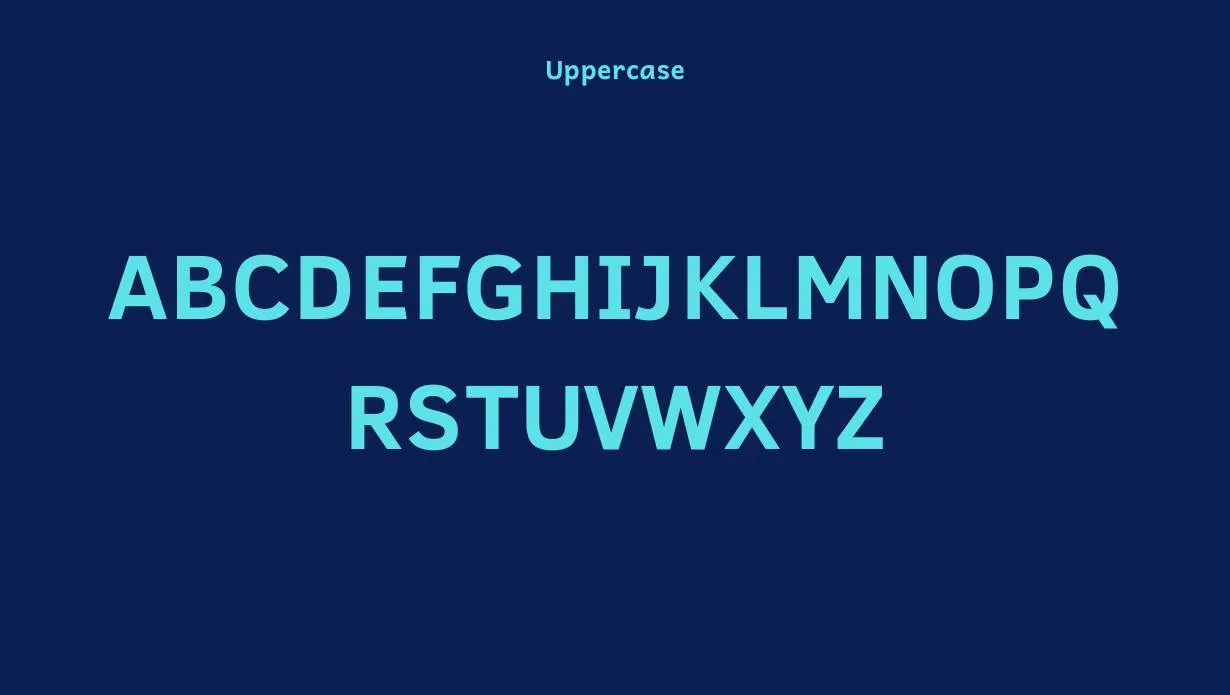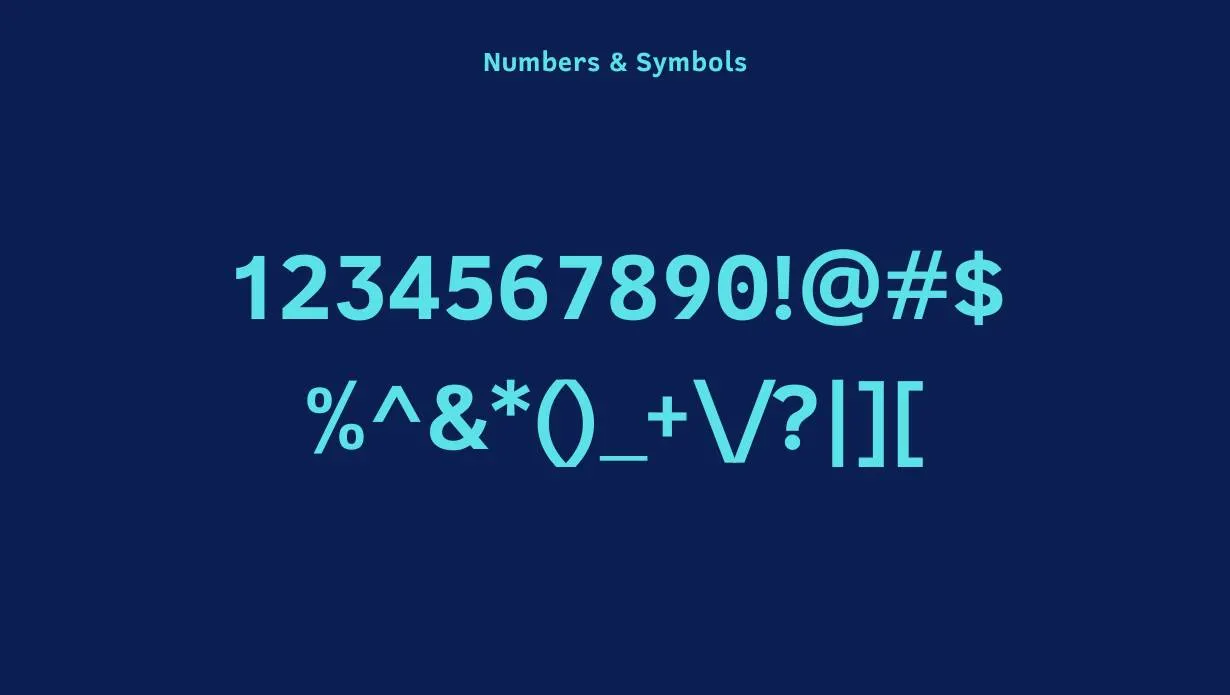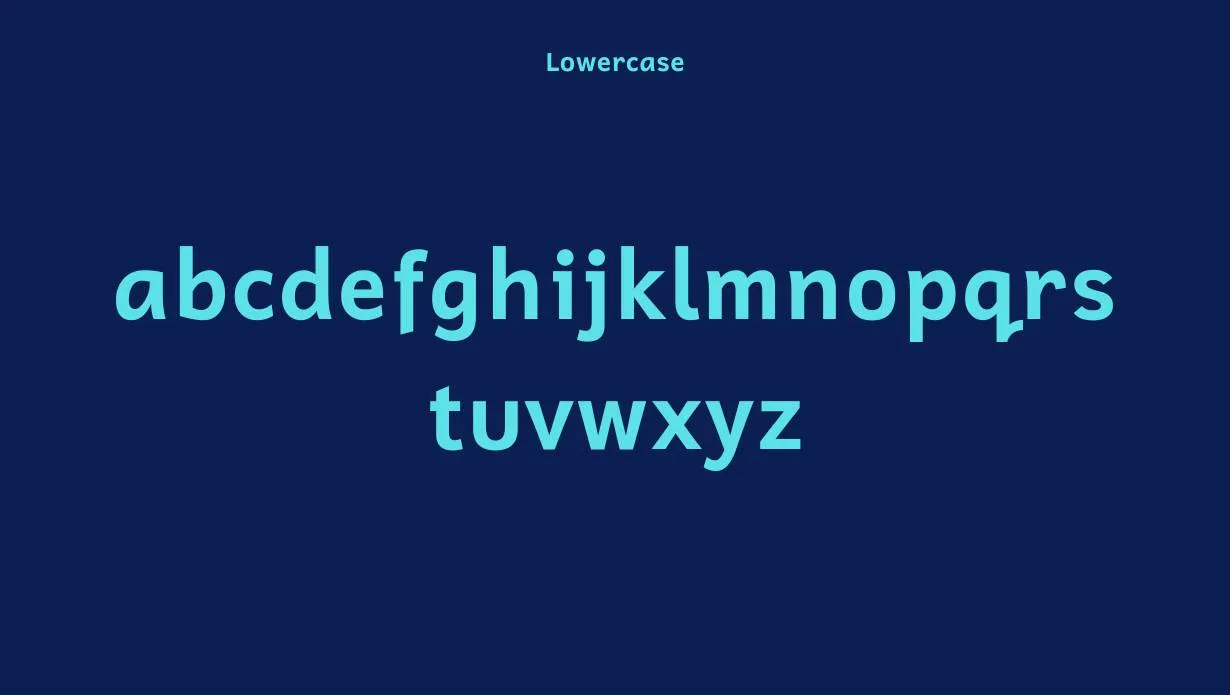
Cadman Font was designed by Paul James Miller. It is a Sans-Serif font which is an elegant and clean font. It has high readability. It was launched on 24-02-2018.
You can make amazing projects by using this font. This font contains many characters and glyphs. It has four different styles and weights.
| Name | Cadman Font |
| Designer | Paul James Miller |
Cadman Font Family